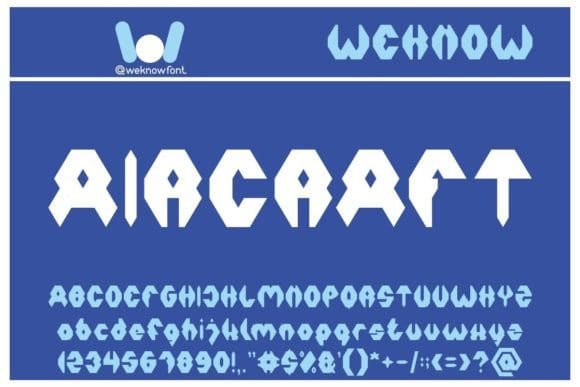
Aircraft Display Font
Aircraft Display Font is a modern techno display font. Masterfully designed to become a true favorite, this font has the potential to bring each of your creative ideas to the highest level!